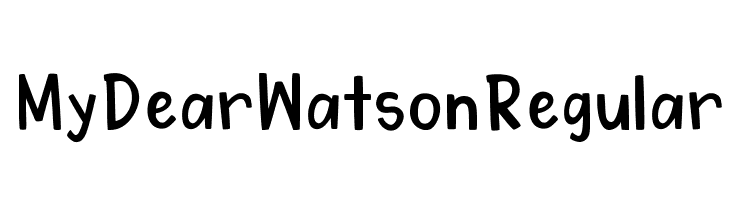
A playful, handwritten-style font with irregular, dynamic strokes.
A playful, informal handwritten font with irregular strokes and a casual appearance.
A playful, handwritten font with a friendly and casual style.
A playful, handwritten font with rounded edges and a casual style.
A lively, expressive handwritten font with fluid, dynamic strokes.